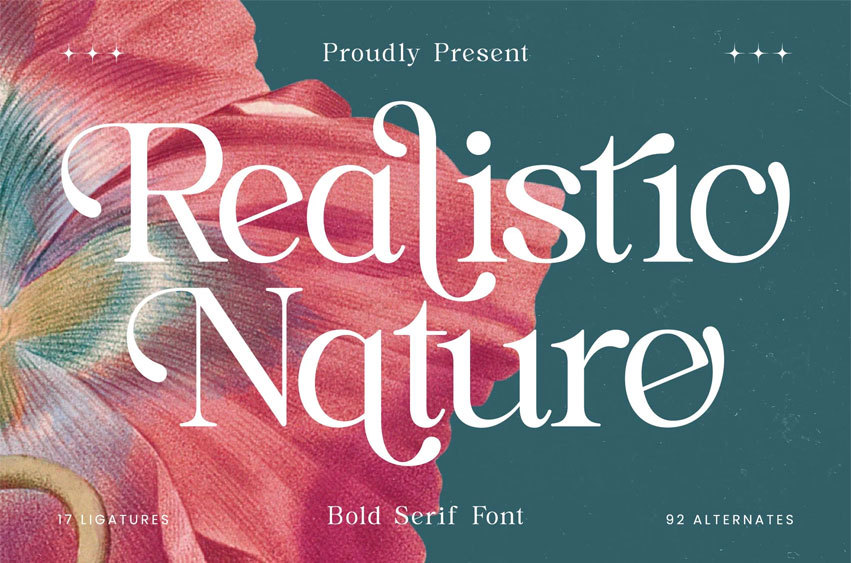
Realistic Nature Font
Realistic Nature Font is a bold serif font designed with elegant curves, artistic contrast, and modern organic details inspired by botanical forms. Its expressive letter shapes, graceful terminals, and fluid ligatures make this typeface perfect for nature-themed branding, editorial titles, luxury packaging, botanical posters, wedding stationery, product labels, magazine layouts, and high-end visual storytelling.
Featuring 17 ligatures and 92 alternates, Realistic Nature gives you full creative flexibility to craft unique, stylish, and harmonious typography. With its bold yet refined character, this font blends natural beauty with modern elegance—ideal for designers seeking sophistication with organic flair.